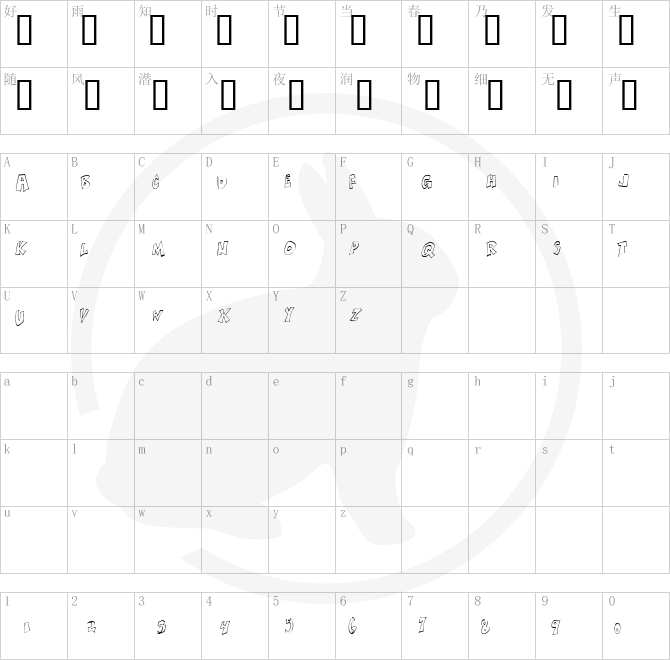
- Font Name:Xanthisma
Xanthisma.ttf is a very beautiful artistic font, Xanthisma.ttf is widely used in the design and printing of various books and pictures,Xanthisma.ttf has a strong visual impact,Xanthisma.ttf is a commonly used font in newspapers, magazines and books, and is used in posters, e-commerce Poster design, store design, logo design, font design and other fields.Xanthisma.